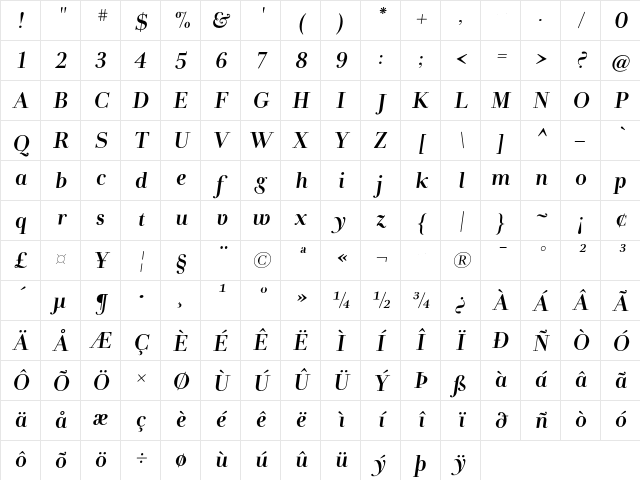
Complete Andrade Pro Bold Italic glyph index. Displaying only characters natively supported by Andrade Pro Bold Italic font.
Andrade Pro is a composed and adaptable typeface that performs quietly and consistently across a wide range of design contexts. The slanted form adds forward momentum and visual energy. Its bold stroke weight gives it real presence on the page.
Pro Tip: Use Andrade Pro for emphasis, pull quotes, and subheadings where its slanted energy can add rhythm to the layout.